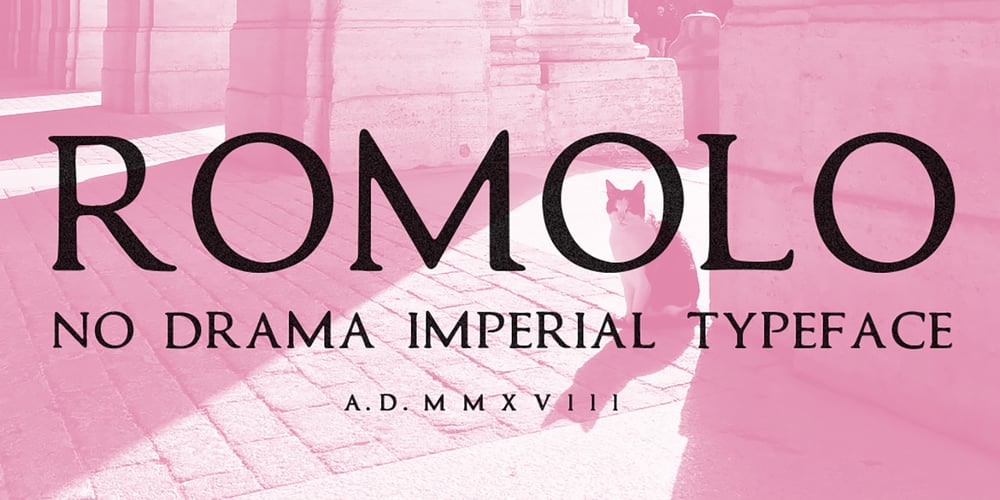
Romolo Font Family was designed by Fabio Milito and published by FMD. Romolo contains 2 styles and family package options. Romolo is a traditional Roman typeface with an informal personality. With its hand-drawn style and the rounded edges Romolo is the approachable version of 2000 years of History.